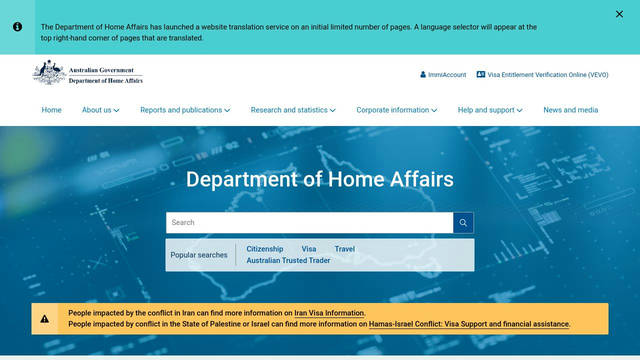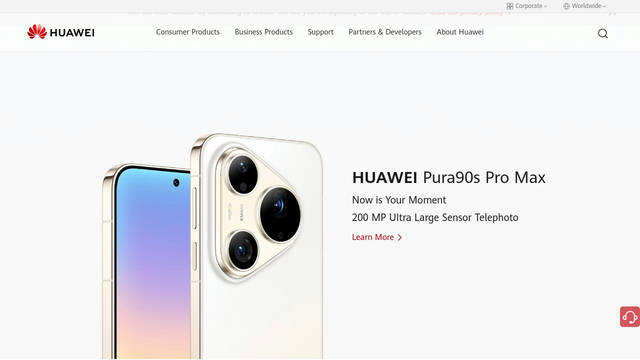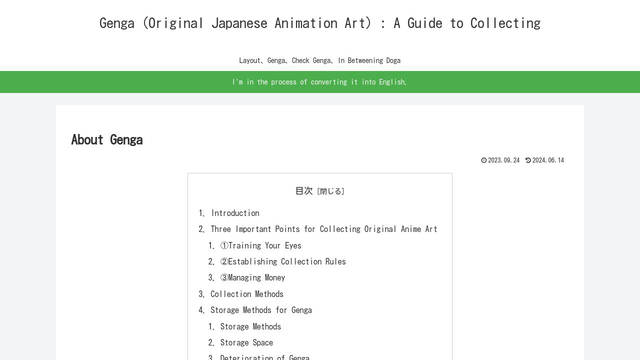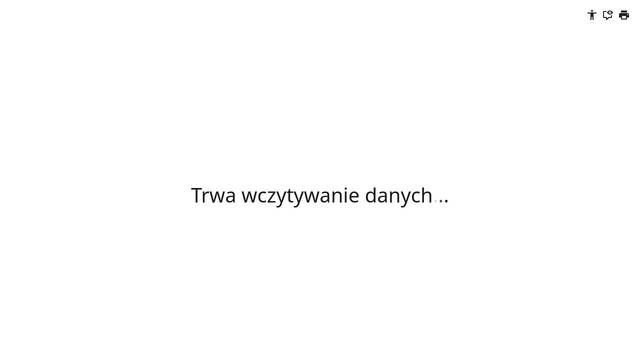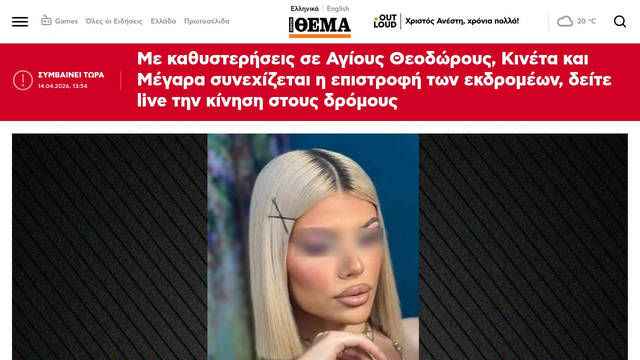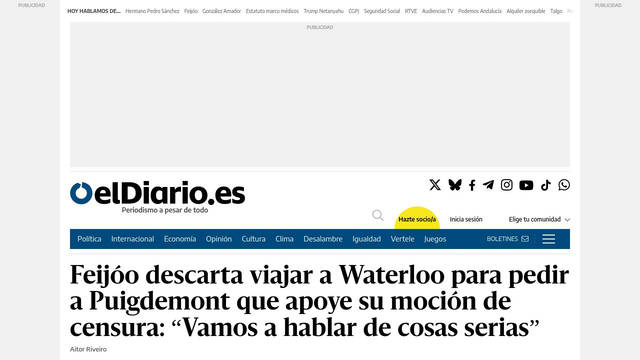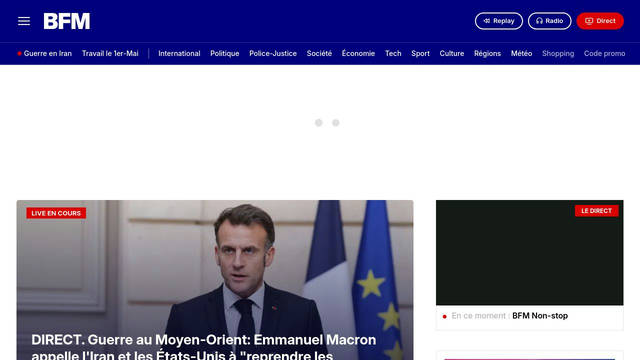
IcoMoon
IcoMoon is an icon font
Icon fonts package UI symbols (arrows, icons, glyphs) as font characters rather than readable text. They're typically used in CSS via class names like <i class="fa-icon">. A standard text preview wouldn't make sense here.